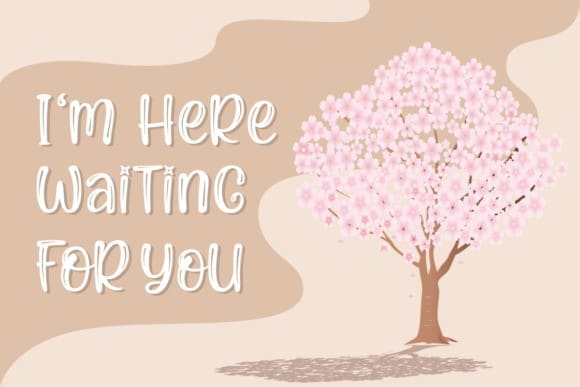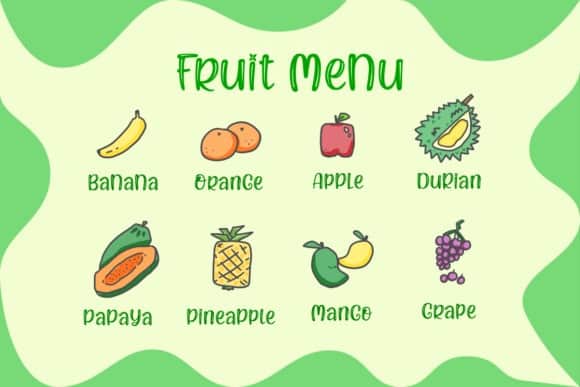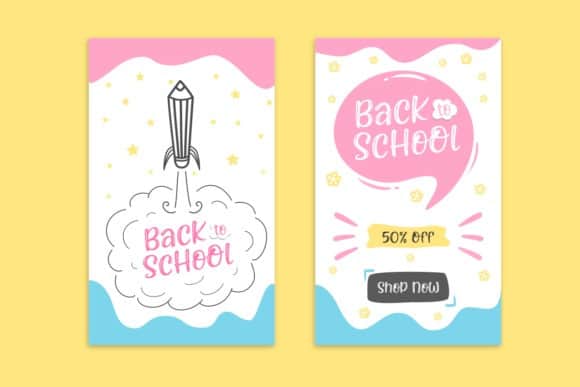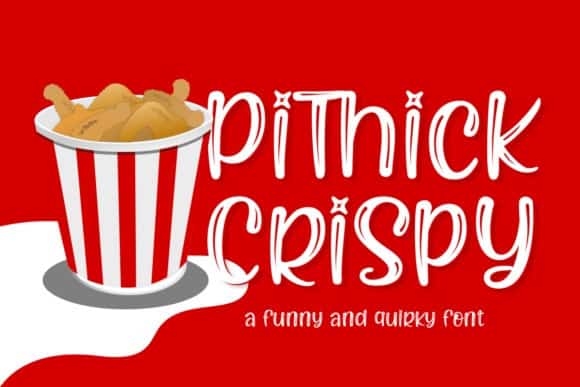
Pithick Crispy Display Font
Pithick Crispy Display Font is a beautiful upper-case display font which suitable to use for children related occasion. It’s designed and shared by Ghuroba Studio. Pithick Crispy is a fun and friendly display typeface. It will elevate a wide range of design projects to the highest level, be it branding, headings, wedding designs, invitations, signatures, logos, labels, and much more!